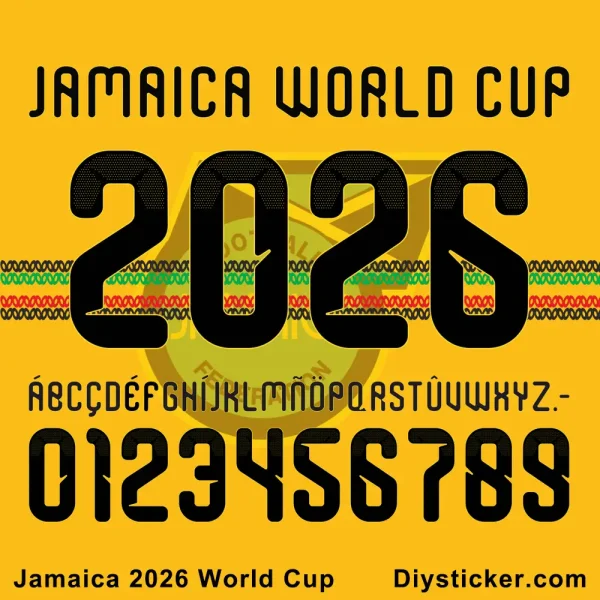
Celebrate the “One Love” spirit with the Jamaica 2026 World Cup Font. Inspired by the legendary Bob Marley and his Tuff Gong record label, this premium typography pack is designed for the Reggae Boyz’ 2026 campaign. Includes installable desktop fonts (TTF, OTF) and professional-grade scalable vectors (AI, CDR, PDF) for flawless jersey printing, vinyl cutting, and sports graphic design.
The Rhythm of the Pitch: Jamaica 2026 World Cup Typography
Own the most iconic typeface of the season. Our Jamaica 2026 World Cup Font is a meticulous recreation of the culturally infused lettering used on the new Jamaica National Team kits (External Link). Crafted in collaboration with the Bob Marley Foundation, this font perfectly complements the “Football is Freedom” collection and the vibrant home and away kit patterns.